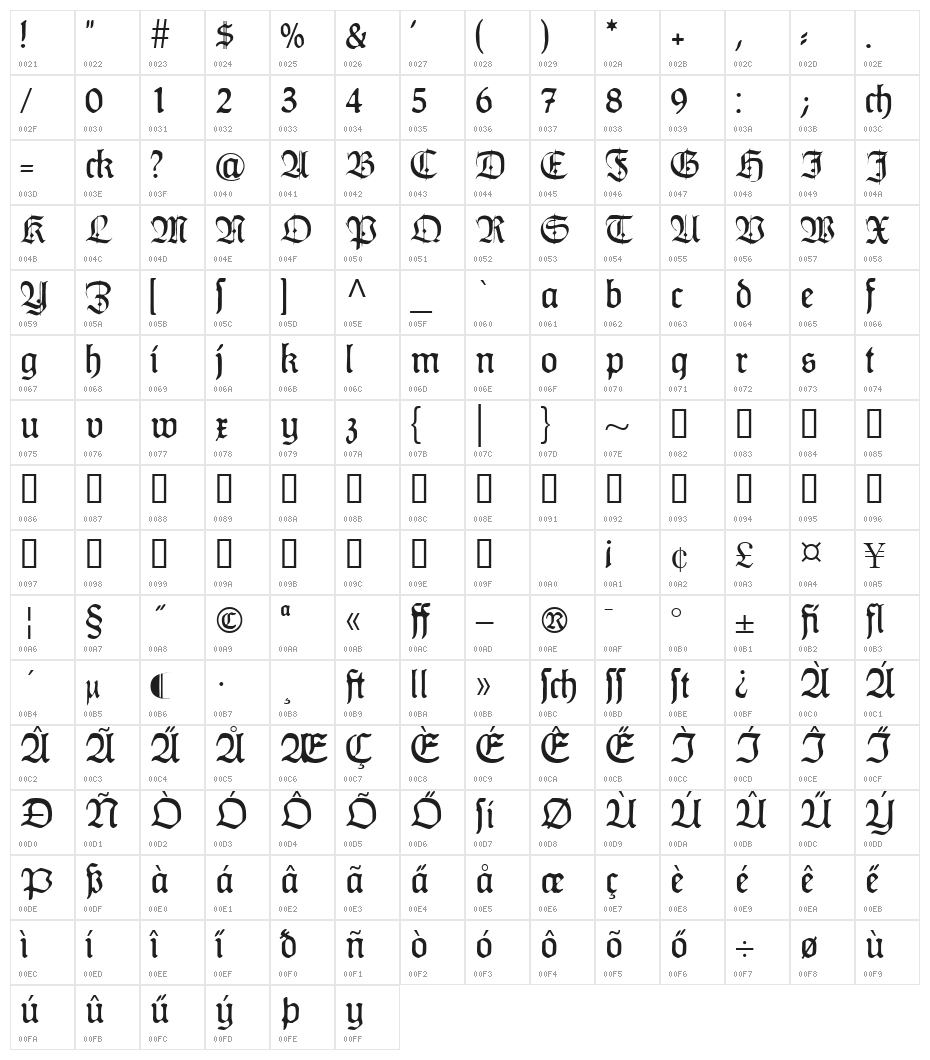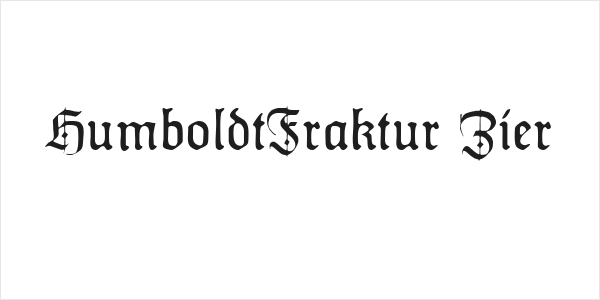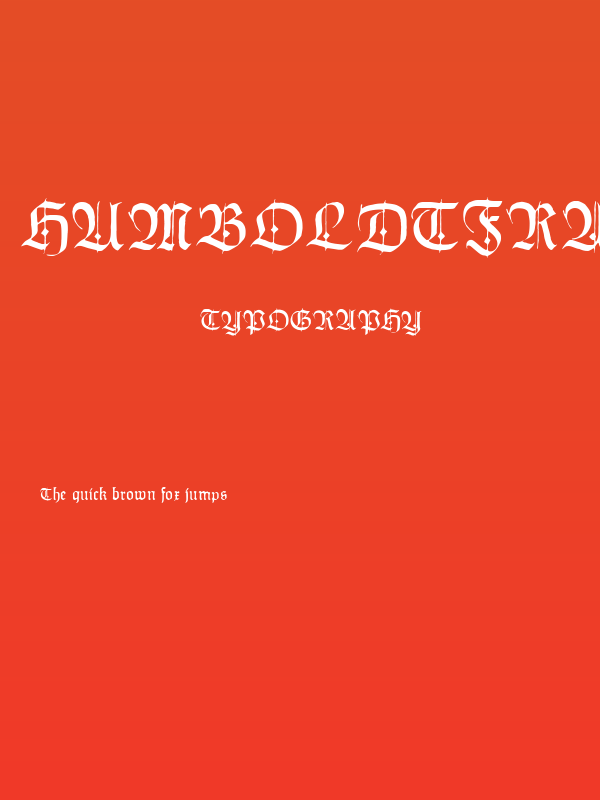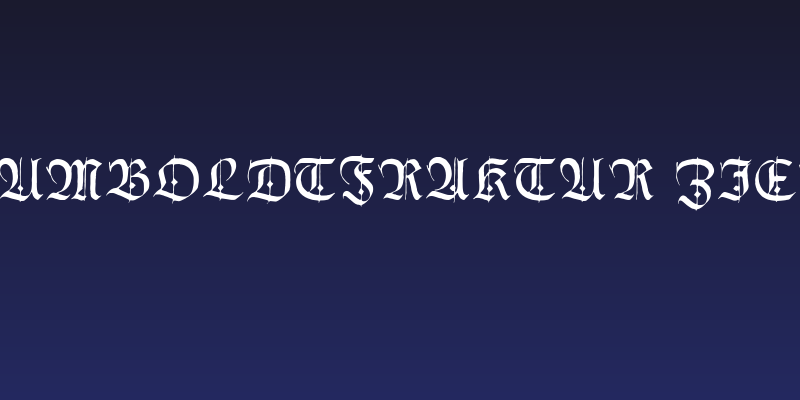
HumboldtFraktur Zier Font
HumboldtFraktur Zier Description
This font is a classic example of the Blackletter style, characterized by its intricate and ornate design. The uppercase letters feature sharp, angular lines with decorative flourishes, giving them a dramatic and historical appearance. The lowercase letters maintain a similar aesthetic with bold strokes and distinctive curves. The numerals are consistent with the overall style, presenting a bold and traditional look. Special characters are designed with the same attention to detail, enhancing the font's cohesive appearance. This font evokes a sense of antiquity and elegance, making it suitable for projects that require a historical or formal touch.
| Use Case | Logos, Headlines, Certificates |
| Proposed Projects | Ideal for historical documents, certificates, book covers, and branding that requires a traditional or gothic aesthetic. |